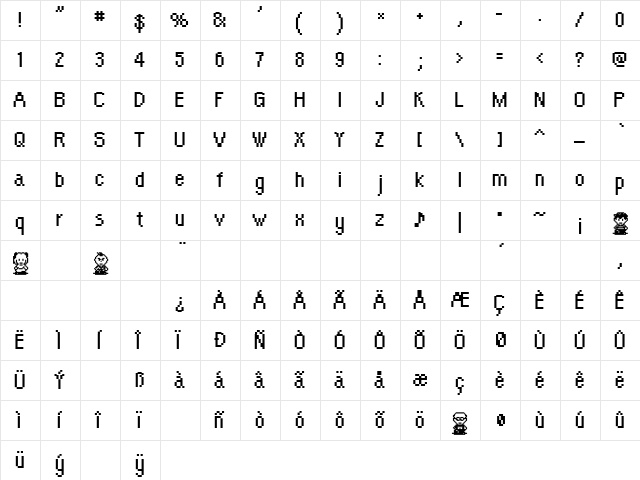
Orange Kid Regular
Design Context for Orange Kid Typeface
Orange Kid is a composed and adaptable typeface that performs quietly and consistently across a wide range of design contexts.